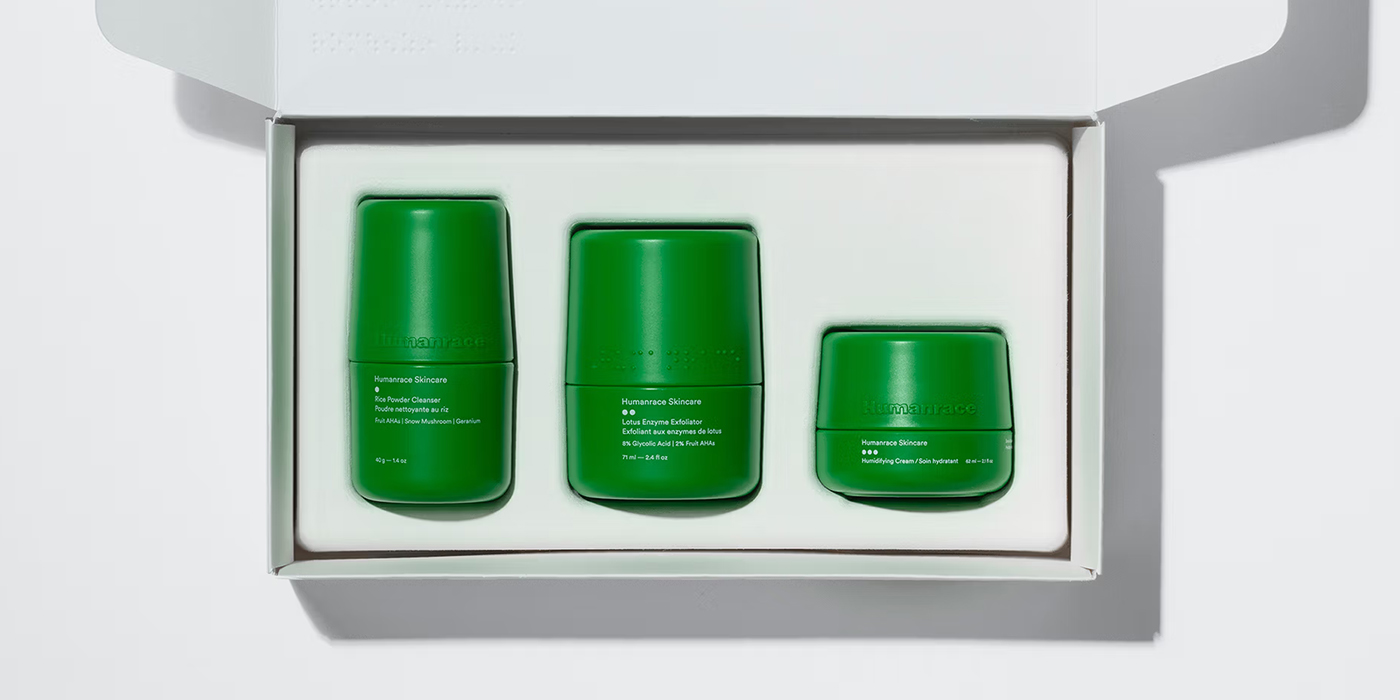
In April, the ATOA team got the chance to be at the Milan Design Week 2026. Our founder, Camila, visited the Humanrace installation and saw their amazing packaging first-hand. That inspired us to write this feature, enjoy!
The wellness industry is famously saturated, often rigidly segmented by demographics, age, and gender. So when visionary artist Pharrell Williams looked at the landscape, he recognized the need for a shift in perspective. In 2020, he founded Humanrace with a simple but profound belief: “Humanrace doesn’t differentiate by race or gender. We’re creating for humans; we are all born in the same skin.”
To translate this philosophy of collective well-being into a brand, the communication challenge was clear: how do you build a visual identity that steps away from traditional beauty tropes and feels as universal and essential as the products themselves? The brand needed to act as a provider of “tools for living,” prioritizing intention, sustainability, and industrial design. Noë & Associates, the global brand consultancy, was tasked with the strategy, design, content, innovation and production for this brand.
One green skincare bottle in a white box next to two removed components showing a refill pod and cap on a tray.
Extreme close-up of a green Humanrace Lotus Enzyme Exfoliator bottle with debossed text and English and French labels.
A New Map of Well-being Through Design Decisions
Noë & Associates anchored the visual decisions for Humanrace in meticulous craft and accessibility, stripping away the decorative excess usually found in skincare. We can see how their signature vibrant green packaging (crafted from over 51% post-consumer recycled plastic with prominent braille detailing) compresses both function and sustainability. This essential design concept was further reflected in the brand’s editorial material. Their assets feature stunning, minimalist layouts and striking macro photography of natural materials alongside diverse human skin textures. More than instructions or results, these images codify a lifestyle. By balancing textural imagery with clinical white space, their visual language perfectly marries narrative with functionality, treating daily care as a universal ritual.
Deconstructed green Humanrace Rice Powder Cleanser container showing the outer cap, base, dome lid, and white refill pod.
The word Humanrace spelled out in a bold, white sans-serif font centered on a solid green background.The word Humanrace spelled out in a bold, white sans-serif font centered on a solid green background.
Seeking Clarity: The Humanrace Sans
Humanrace uses a custom typeface throughout the project, Humanrace Sans (based on the data on their website). Why does its design make sense within the brand’s radically inclusive narrative? By avoiding quirky serifs or highly stylized scripts, this grotesque sans-serif provides the ultimate functional clarity. Its uniform geometry, wide stance, and clean lines perfectly mirror the industrial design ethos of the physical packaging. The font feels modern and entirely stripped of any cultural or gendered bias. In a system where the products are meant to speak to everyone seamlessly, Humanrace Sans acts as a neutral vessel, allowing the core message of humanity to remain front and center.
A closed, rectangular white cardboard box featuring a bold green Humanrace logo and clean, minimalist typography.
Side-by-side view of silver Humanrace containers on a tray and a close-up profile of founder Pharrell Williams' jawline.
About Noë & Associates
Noë & Associates is a global brand consultancy that believes their work must leave a positive, lasting legacy. Working across the entire lifecycle of a project, they focus on making the complex simple with precision and purpose. Their “lens of excellence” has earned them partnerships with some of the most visionary businesses and developers in the world. Beyond their striking work for Humanrace, they have built enduring brand universes for luxury giants like Baccarat, Rolex, Aman, and Waldorf Astoria. Make sure to check out their full portfolio to see how they continue to reimagine the established.